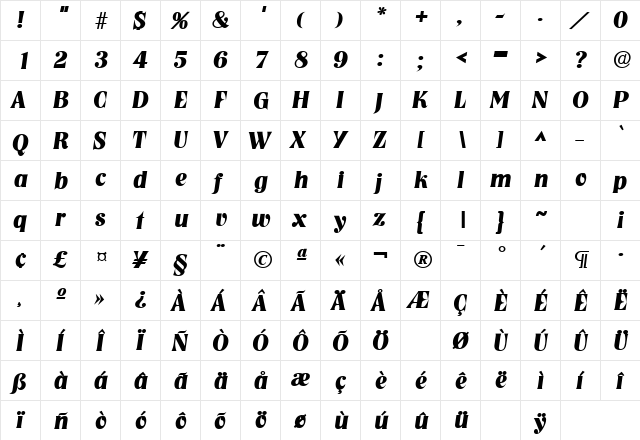
NashvilleLH Bold Italic
Design Context for NashvilleLH Typeface
NashvilleLH offers clean, dependable letterforms without strong stylistic allegiance, making it a practical choice for designers who need flexibility. The slanted form adds forward momentum and visual energy. The heavy weight commands attention and anchors typographic hierarchies.